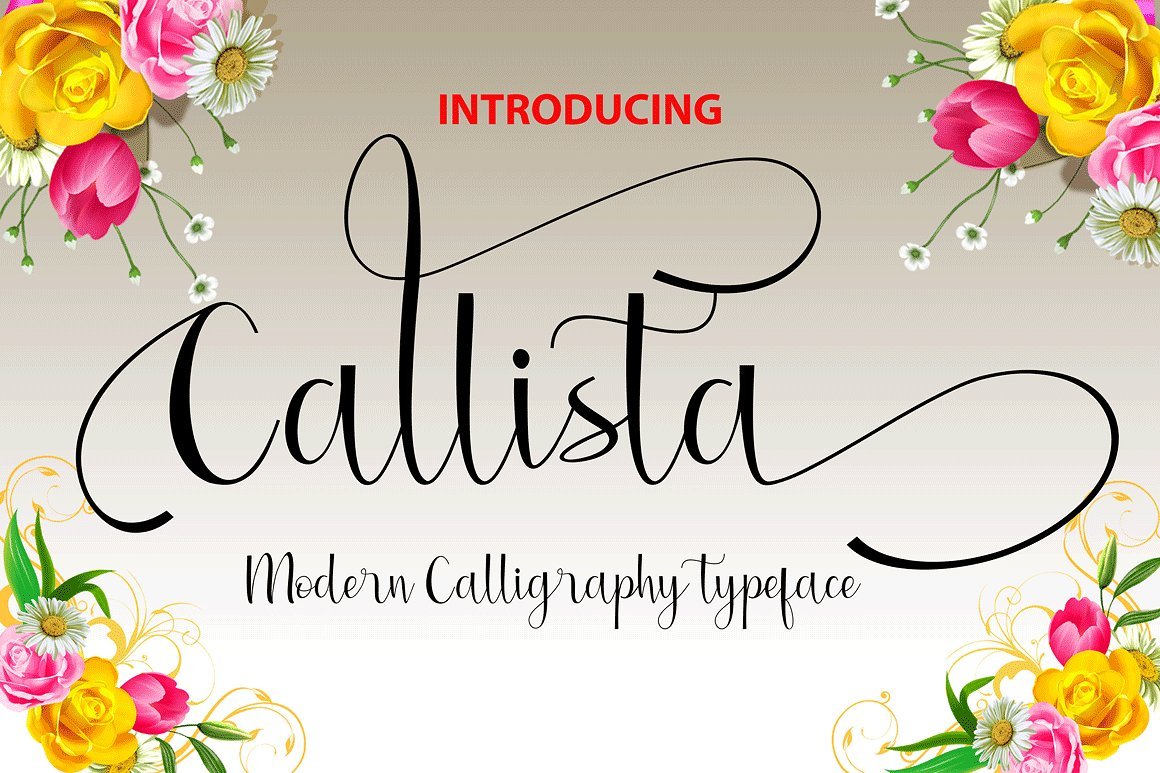
Unleashing the Beauty of Callista Font
There’s something magical about the moment when a design comes together – the perfect balance of color, texture, and typography. It’s a feeling that can leave you breathless, eager to share your creation with the world. For designers, this moment is all the more special when it’s made possible by the perfect font. And that’s exactly what the Callista Font offers – a stunning and beautiful calligraphy font that’s sure to leave a lasting impression.
As a romantic script, the Callista Font is versatile and suitable for a wide range of designs, from wedding invitations to blog posts. Its flowing lines and elegant curves make it a standout choice for designers looking to add a touch of sophistication to their work. Whether you’re a seasoned pro or just starting out, the Callista Font is a valuable addition to your design toolkit, sure to elevate your creations and inspire your creativity.
Callista Font Key Features
- Unique Characteristics: Callista Font boasts a unique blend of elegance and sophistication, with refined lines, subtle flourishes, and a classic feel that evokes the spirit of traditional typography.
Callista Font Review
As a designer, I was excited to dive into the Callista font and see what it had to offer. Here are my honest thoughts:
- The elegant, sophisticated feel of the font makes it perfect for luxury brands and high-end designs.
- The large x-height and open counters make it highly legible, even at small font sizes.
- The font family includes a range of weights and styles, making it versatile and easy to use in various design contexts.
- Callista font is highly suitable for body text as well as headings, offering a consistent and professional look.
- The font may feel a bit too formal or stuffy for more casual or creative projects.
- The range of weights and styles, while extensive, may not be as nuanced as some other font families.
- The font may not be the best choice for projects that require a more playful or whimsical tone.
Overall, I think Callista is a solid choice for designers looking for a high-end, sophisticated font. While it may not be the best fit for every project, it’s certainly a versatile and professional option that can add a touch of elegance to any design.
Tips for Getting the Most Out of Callista Font
Use Callista font for titles and headings to add a touch of elegance and sophistication to your designs.
Combine Callista font with other fonts to create a unique and visually appealing typography.